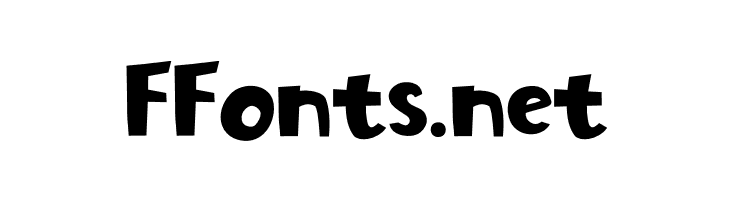
• Panton-Trial Fat Italic
A bold, rounded, and italic font with a modern and dynamic style.
• Panton-Trial Heavy
A bold, rounded font with a strong and friendly appearance.
• Panton-Trial Heavy Italic
A bold, italicized font with a modern and assertive style.
• Panton-Trial Light
A modern, light sans-serif font with clean lines and balanced proportions.
• Panton-Trial Light Italic
A sleek, modern sans-serif font with a light, italic style.
• Panton-Trial Regular
A modern, geometric sans-serif font with clean lines and balanced characters.
• Panton-Trial Regular Italic
A modern, italic sans-serif font with a clean and dynamic style.
• Panton-Trial SemiBold
A modern, semi-bold sans-serif font with smooth, rounded edges and excellent readability.
• Panton-Trial SemiBold Italic
A modern, semi-bold italic sans-serif font with a sleek design.
• Panton-Trial Thin
A sleek, modern typeface with thin, uniform strokes and geometric influences.
• Panton-Trial Thin Italic
A sleek, modern thin italic font with elegant strokes and a refined appearance.
• Pantoufle DEMO Regular
A playful, bold handwritten font with rounded strokes and a casual style.
• Pantry
• Pants Patrol
• PantsPatrol-Regular
A bold, striped font with a playful and dynamic design.
• PantsPatrol-Regular
A bold, striped font with a playful and dynamic design.
• Pantura Regular
A playful, rounded font with tall, narrow letters and smooth curves.
• Panzer 3D Condensed
A bold, 3D, condensed font with a striking outline and impactful design.
• Panzer Condensed
A bold, condensed font with a geometric and industrial style.
• Panzer Regular
A bold, geometric font with a modern, industrial aesthetic.
• Paolo
A bold, modern sans-serif font with a strong, geometric design.
• Paolo Bold